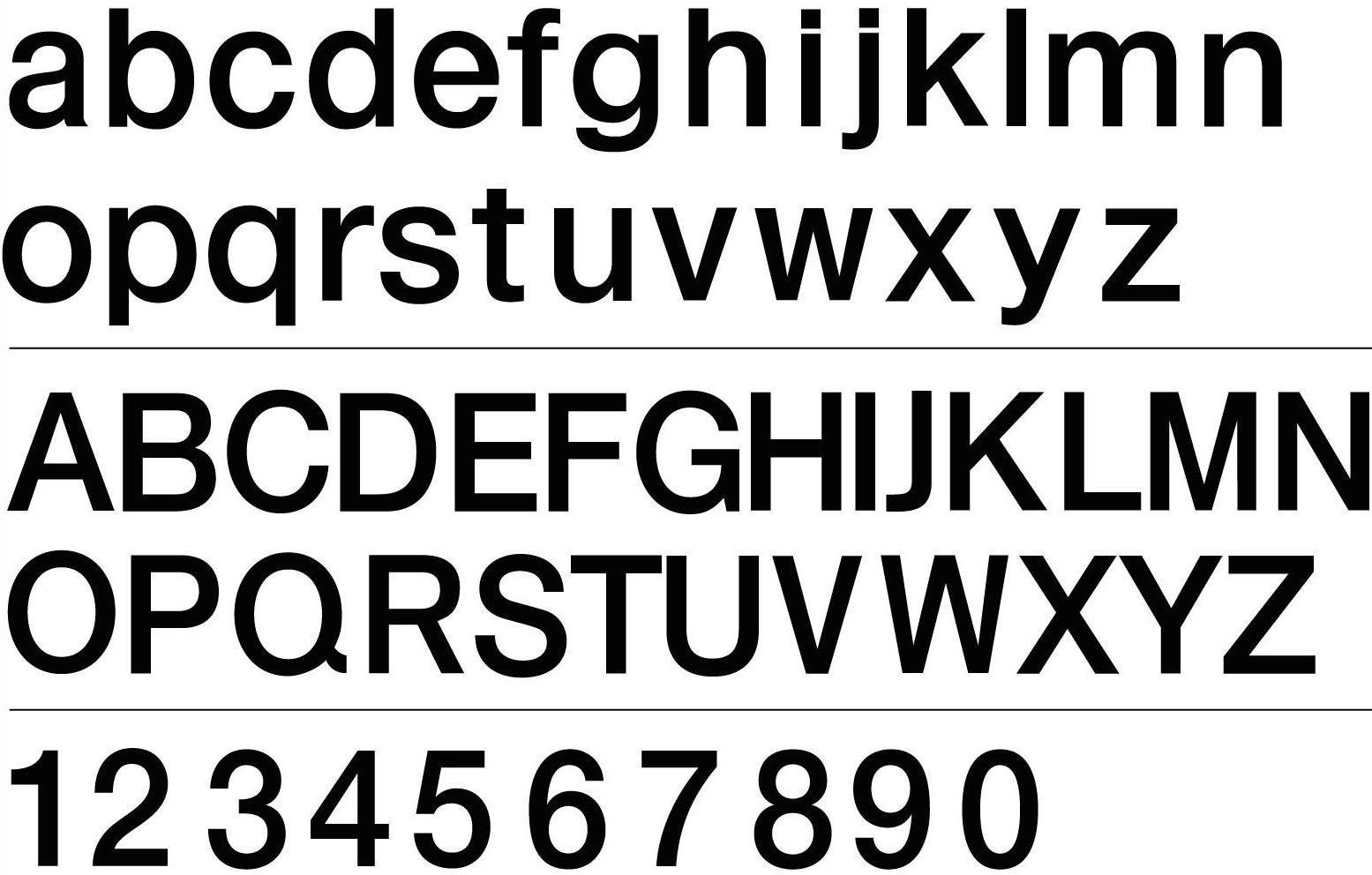
A custom typeface based on Helvetica and Standard (Akzident Grotesk) created by Dutch-Italian designer Bob Noorda for the signage of the Milan subway.